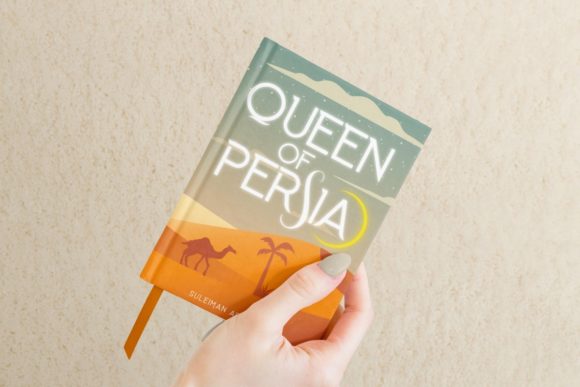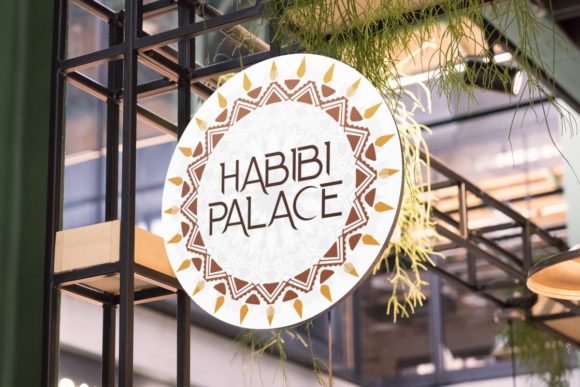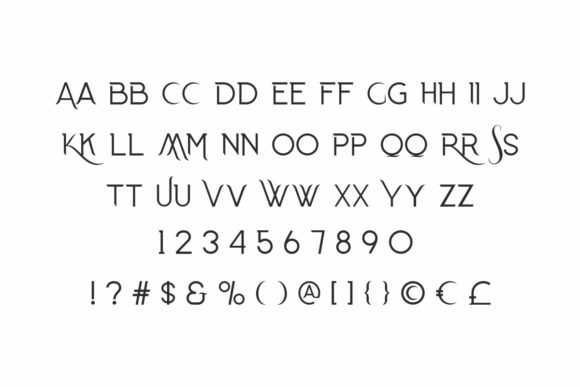
Introduction to Persian Sword Font
Persian Sword is a distinct and elegant display font.
It is perfect for product packaging, branding project, magazine covers, social media, wedding, or just used to express words above the background .
Persian Sword Font offers exceptional quality and versatility, making it a valuable addition to your design toolkit. Whether you’re creating for personal projects or commercial use, Persian Sword Font delivers professional results.